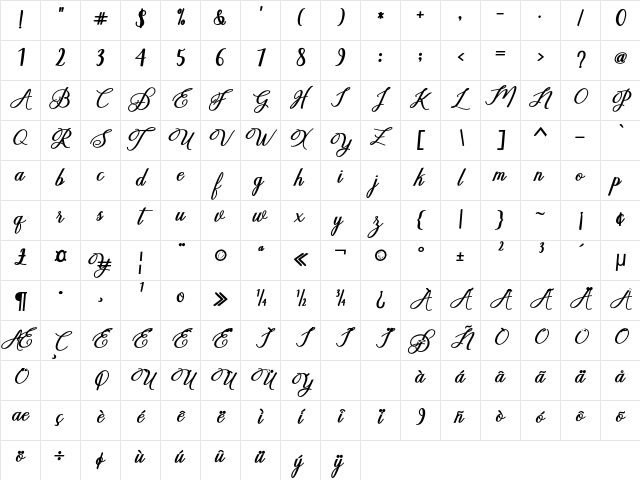
Complete delightful script glyph index. Displaying only characters natively supported by delightful script font.
delightful flows with the natural rhythm of handwritten lettering, making it ideal for designs that call for warmth and personal expression. Its slender proportions lend an understated elegance to any composition.
Font Pairing: Combine delightful with a simple geometric sans for maximum contrast - the tension between flowing curves and clean structure is a classic typographic pairing.
Pro Tip: Use delightful for short runs of text - names, titles, or taglines. Extended body copy in script faces tires the eye quickly.